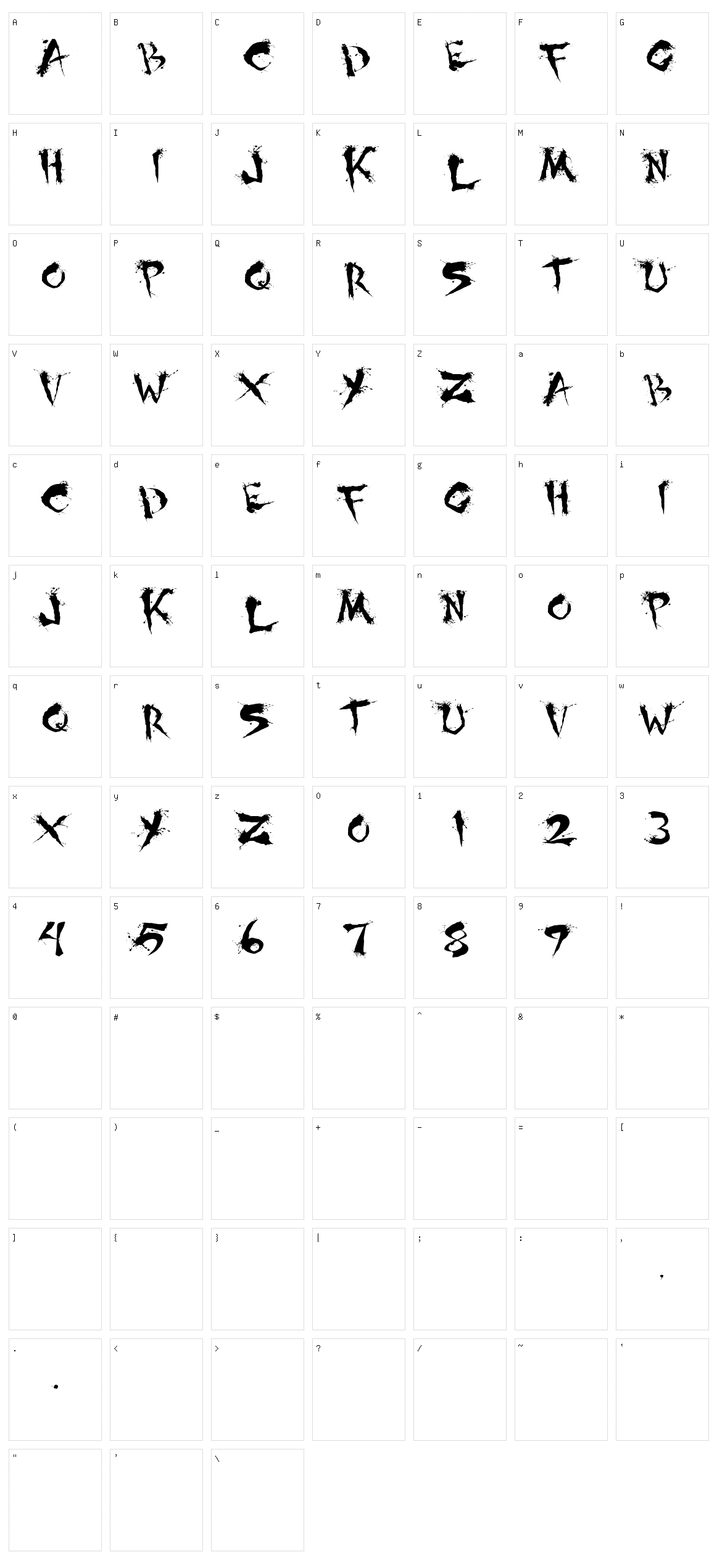
The free font Shoguns Clan is carefully designed by Christopher Hansen, showcasing a thoughtful balance of creativity and usability and falls under the Trash font style. When you download the ZIP file, it contains only 77.72 KB of font files, making it lightweight and quick to download. Please review the license details below to understand permitted usage and distribution rights. If license information is not available, we recommend using this font for personal projects only or contacting the author directly for commercial usage permissions.
Shoguns Clan
This font is based on some of those samurai B-movie flicks from the 80's.